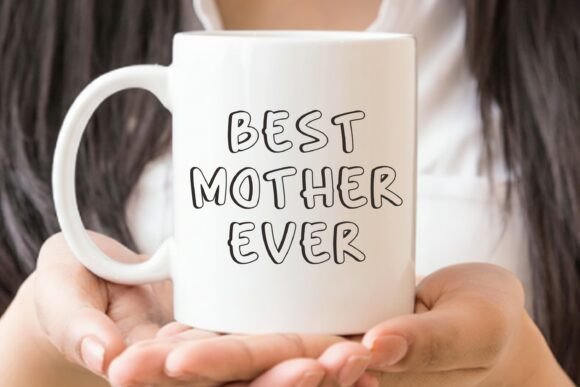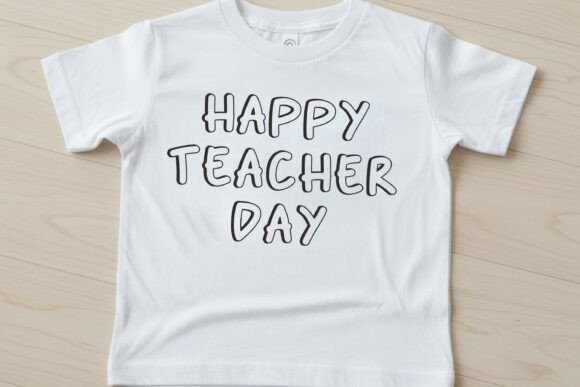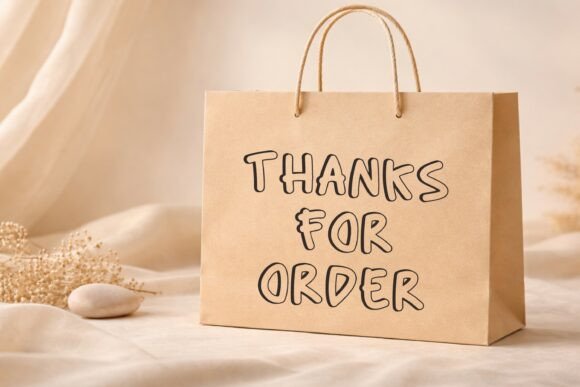
Introduction to Puffy Outline Font
Remember the excitement of designing a new project, pouring over fonts and colors until the perfect combination sparks creativity? That’s exactly what happened when I stumbled upon the Puffy Outline Font – a delightful display font that instantly brightened up my workspace.
With its soft, rounded shapes and bold outline style, the Puffy Outline Font is a design resource that brings a lighthearted and friendly vibe to any creative project. Its bubbly and hand-drawn appearance makes it perfect for kids-themed designs, playful branding, and eye-catching headlines. Whether you’re a seasoned designer or just starting out, this high-quality font is sure to elevate your work and leave a lasting impression.
Key Features of Puffy Outline Font
- Unique Puffy Outline Font style, ideal for creative projects and designs that require a high-quality, visually appealing font.
- Designed to work well with a transparent background, creating a beautiful, eye-catching effect when used in creative projects.
- Perfect for designers looking for a unique, high-quality font to elevate their creative project and add a professional touch.
Honest Review: Puffy Outline Font
What works well about the Puffy Outline Font is its versatility and creativity. It’s perfect for adding a playful touch to your design, and the transparent background makes it easy to layer over other elements. The font is also highly customizable, allowing you to adjust the size and color to suit your needs.
The Puffy Outline Font is suitable for a wide range of creative projects, from logos to digital art. It’s a great addition to any designer’s toolkit.
What I Like:
- ✨ Unique and creative design
- ✨ Versatile and highly customizable
- ✨ Transparent background for easy layering
- ⚠️ Limited font sizes and styles available
- ⚠️ May not be suitable for formal or professional projects
The Puffy Outline Font is perfect for creating eye-catching social media graphics, posters, and flyers. It’s also great for adding a touch of whimsy to your website or blog.
To get the most out of the Puffy Outline Font, experiment with different text colors and backgrounds to create a unique look. You can also combine it with other design elements to add depth and interest to your design.